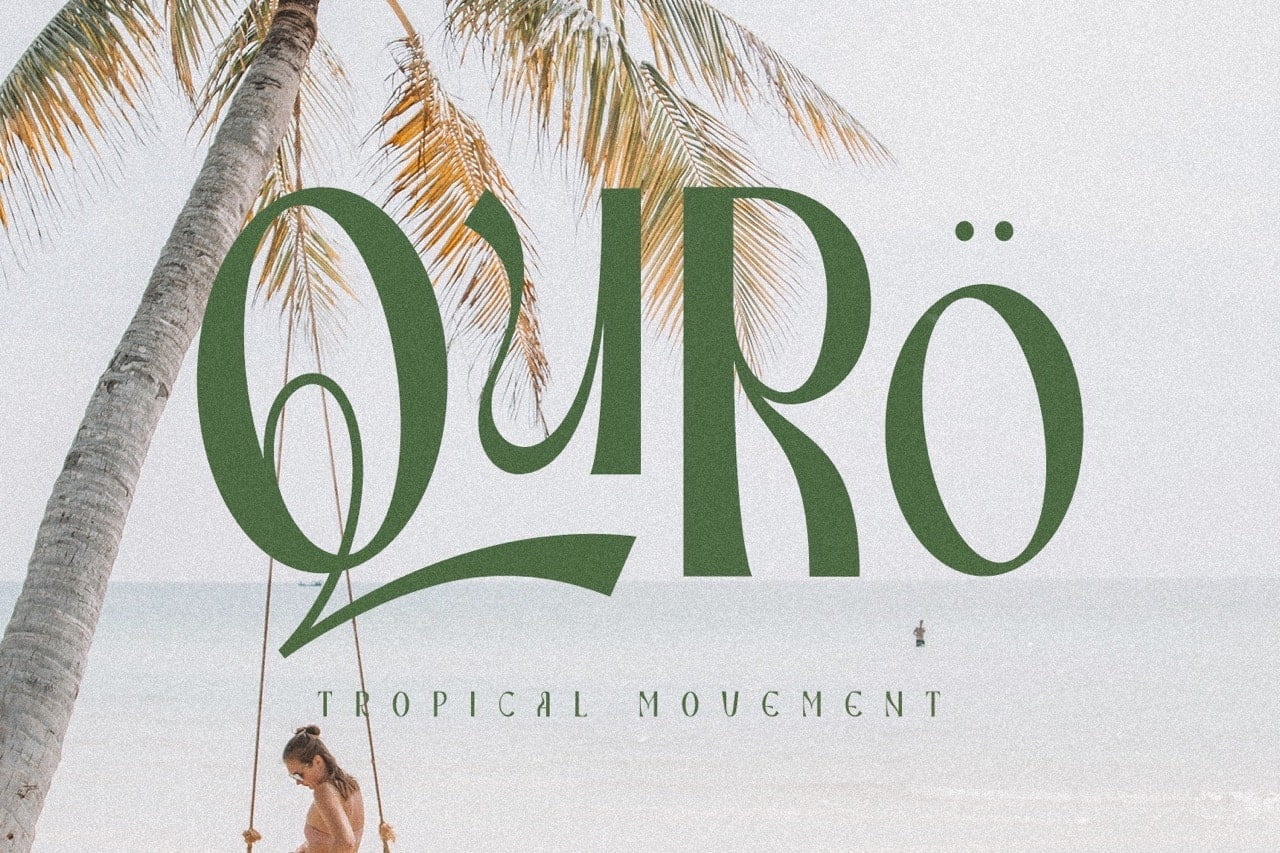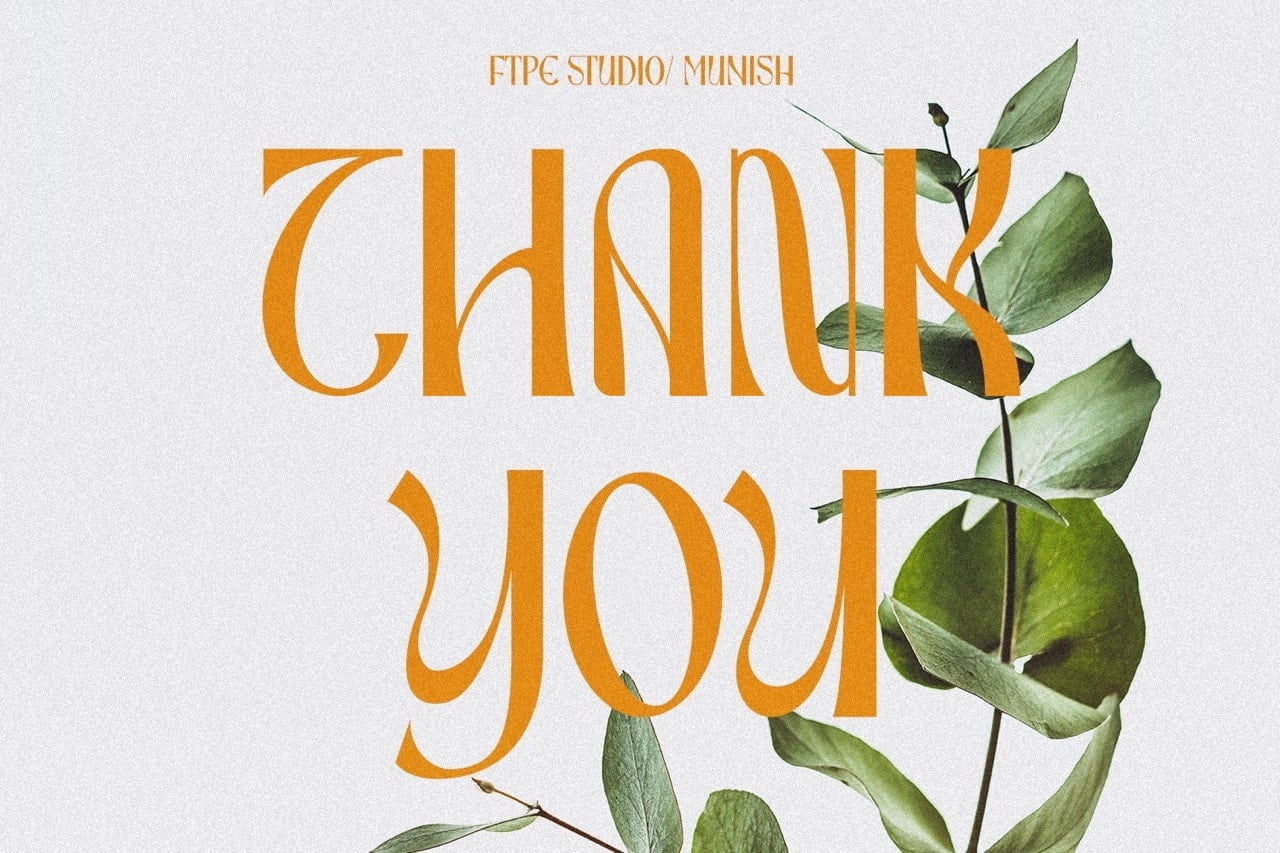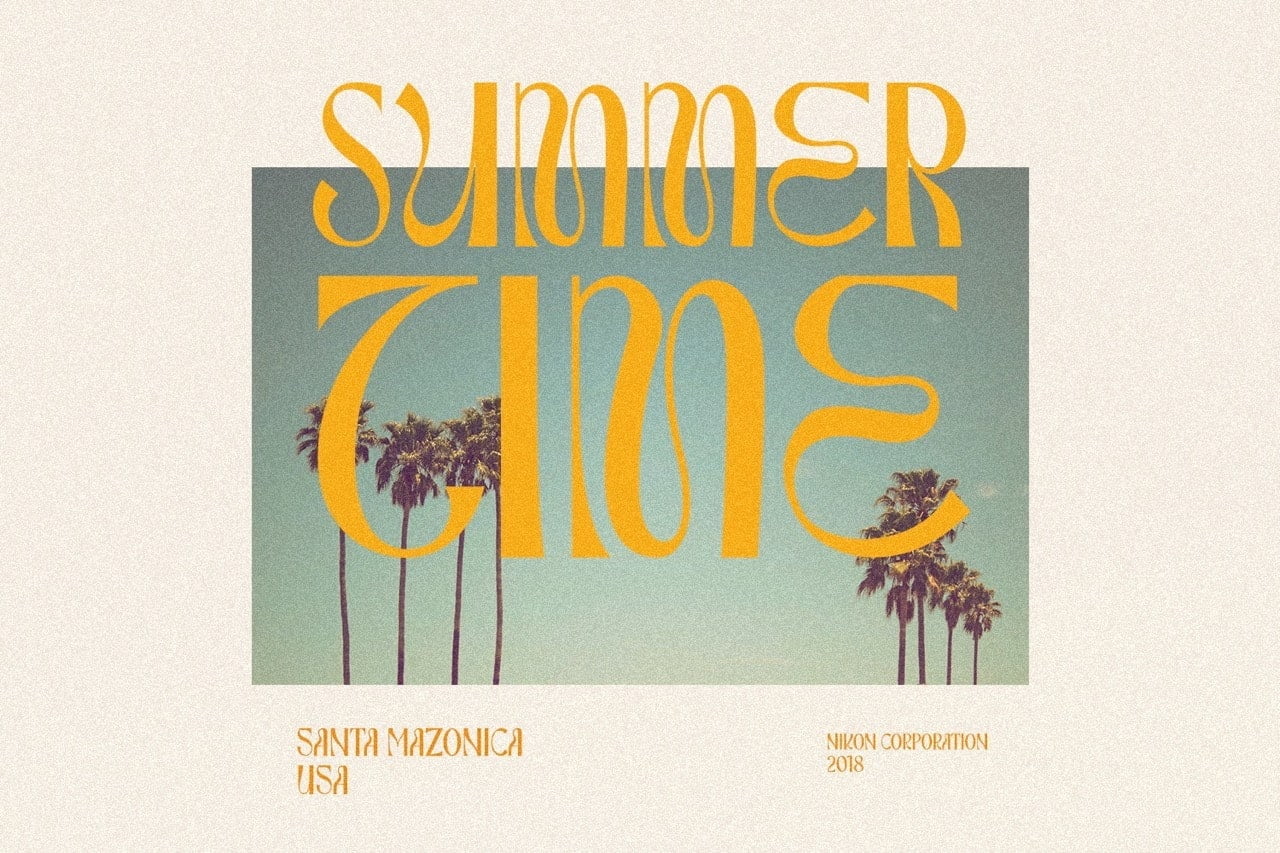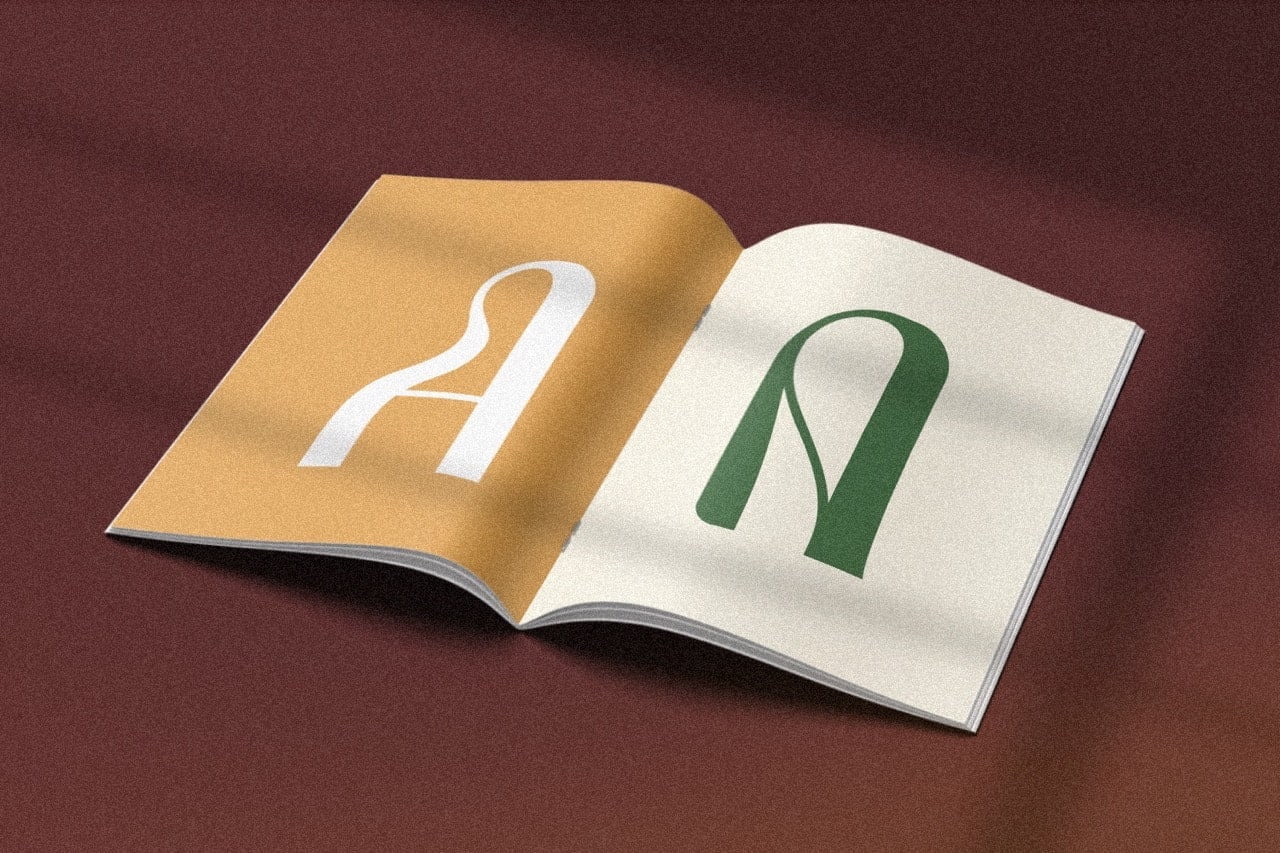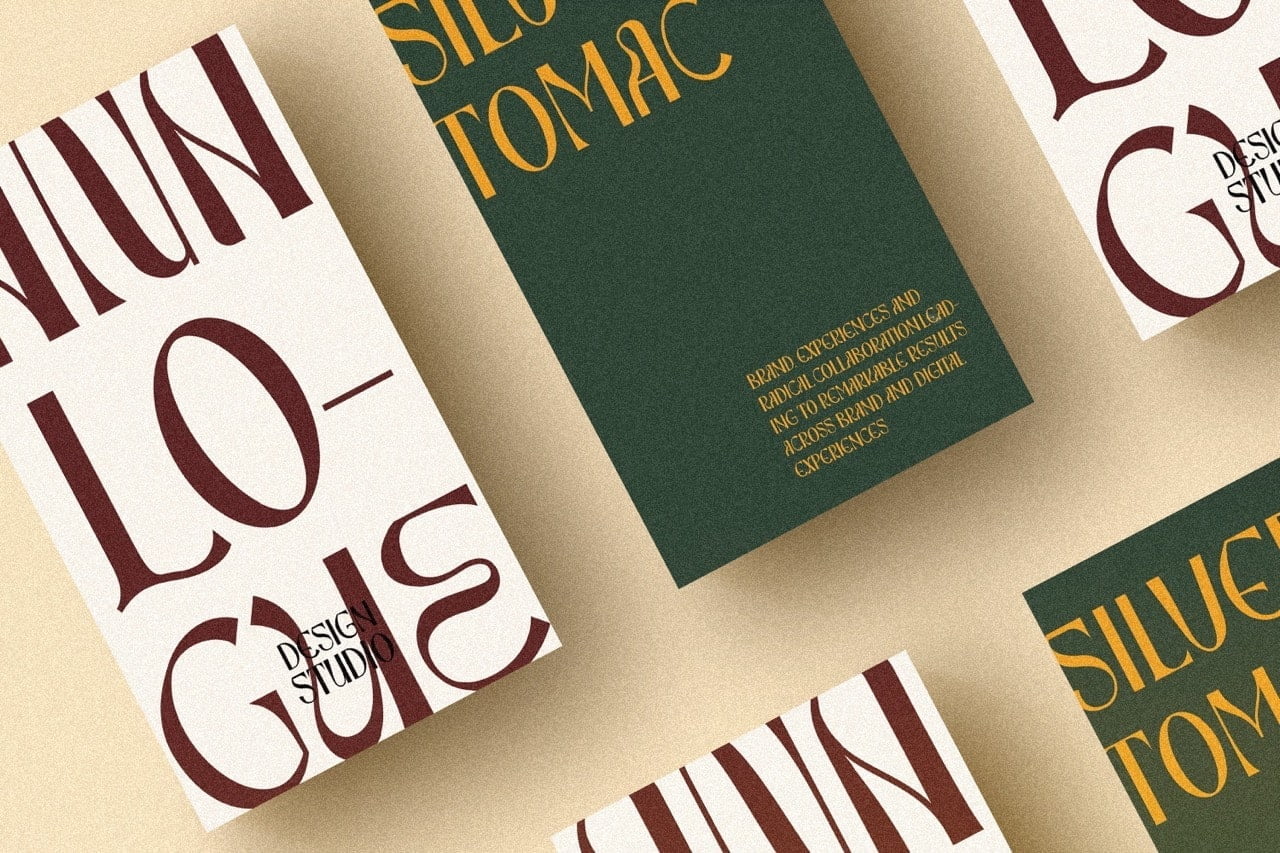
MUNISH is a playful and nostalgic font that has an unique 1970s feel because to its massive curves. You could use it to make phonetic sound or text in a font that is great for vintage designs, logos, and brands too! MUNISH seems really at work among those vintage designs, logos, and brands.
• 2 Styles (Regular and Italic)
• Basic Latin A-Z and a-z
• Numerals & Punctuation
• Stylistic Ligatures and Alternate Glyphs
• Multilingual Support for ä ö ü Ä Ö Ü …
Munish Classic Font